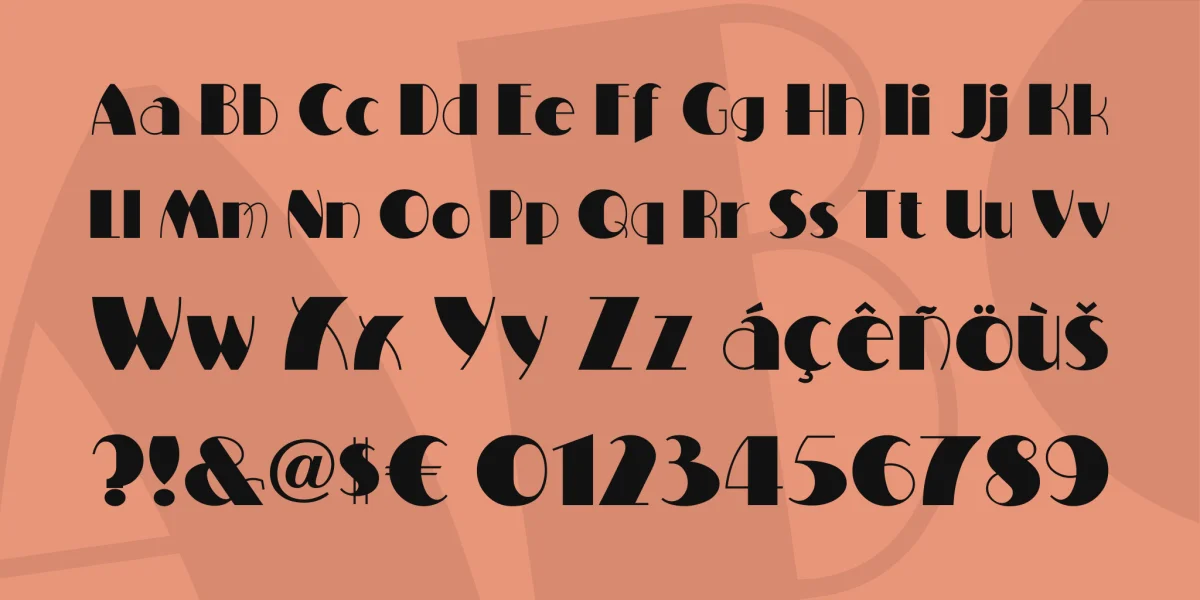
Here’s another unnamed, uncredited gem from the book Art Deco Initials, somewhat similar to my Conga Line, but in many ways completely different. The font gets its rather clever name from Eric Perlin, who suggested it in a “Name That Font” segment at the, sadly, now-defunct TrueType Resource website. Rollicking fun.